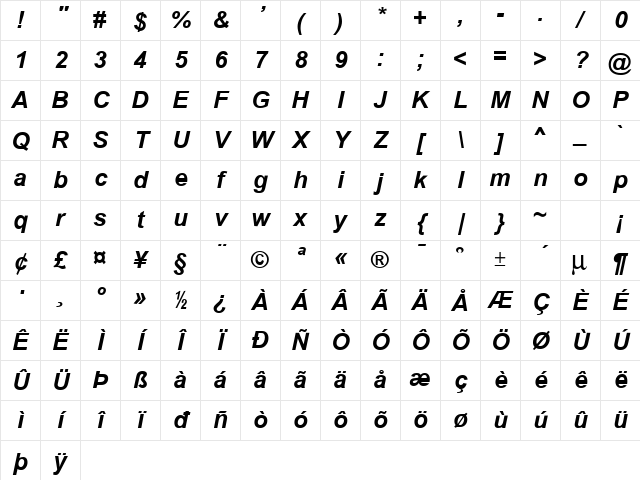
Complete Dixon Bold Ital Normal glyph index. Displaying only characters natively supported by Dixon Bold Ital Normal font.
Dixon Bold Ital is a composed and adaptable typeface that performs quietly and consistently across a wide range of design contexts. Its bold stroke weight gives it real presence on the page.